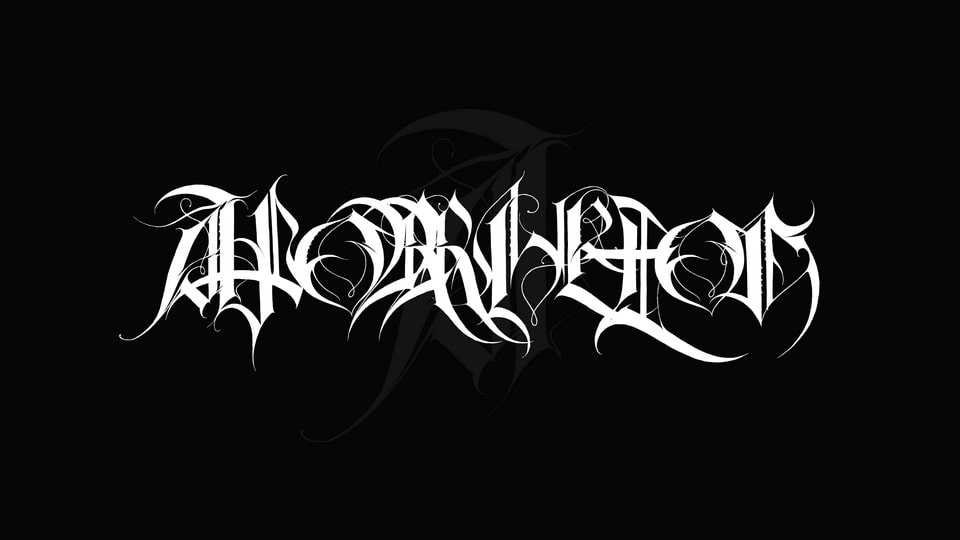
Download Aporrheton font, an intricate and eerie blackletter-inspired typeface infused with extreme metal aesthetic with its razor-sharp serifs, elaborate flourishes.
Designer: Victor Tkachenko